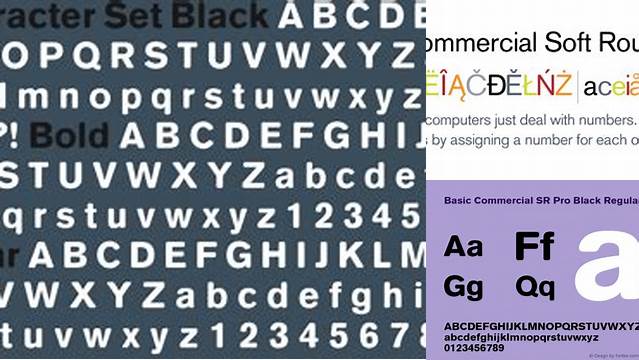
Hey guys! If you're on the hunt for a versatile and user-friendly font that's perfect for all sorts of design projects, you've come to the right place. We're diving deep into the world of basic commercial soft rounded fonts, offering you a complete guide to find the perfect one, with a focus on free downloads. This type of font is a real workhorse, offering a friendly and approachable feel that's ideal for everything from websites and apps to logos and marketing materials. Let's get started!
1. What Exactly is a Soft Rounded Font? Understanding the Basics
Okay, so first things first: what is a soft rounded font, and why should you care? Basically, it's a typeface characterized by its gentle curves and rounded terminals (the ends of the letter strokes). Think of it as the polar opposite of a harsh, angular font. Instead of sharp corners, you get smooth, flowing lines that create a sense of warmth, approachability, and modernity. This is a huge deal when it comes to design; it can significantly impact how your audience perceives your brand or message.
Basic commercial soft rounded fonts, as the name suggests, are designed with a commercial license in mind. This means you can use them for a wide range of projects, including those that are intended for profit, without worrying about copyright issues (always check the specific license!). The 'soft' aspect is what sets these fonts apart. It refers to the rounded edges and lack of sharp lines, giving them that friendly appearance. The goal with these fonts is to be readable and visually appealing, making them a great choice for branding, user interfaces, and body text.
This type of font is extremely versatile and can be applied to many things, from a cool logo design or a website to a social media banner. The goal is to make the text feel inviting and easy on the eyes. This is especially important for user interfaces, where you want to create a smooth experience without any harshness. The design of a soft rounded font also lends itself very well to a clean and minimalist aesthetic, which is hugely popular in modern design. In short, a basic commercial soft rounded font is a super handy tool to have in your design toolkit. Its adaptability means it can be used in loads of different ways.
2. Key Features and Characteristics of Soft Rounded Fonts
So, what exactly makes a font a basic commercial soft rounded font? Let's break down the key characteristics: The main thing is, of course, the rounded terminals. The ends of the letter strokes are curved rather than pointed, which is what gives these fonts their soft appearance. You'll notice a lack of sharp angles; the curves flow smoothly, creating a visually pleasing and inviting aesthetic. A good soft rounded font will be highly legible, even at smaller sizes. This is critical for body text and user interface elements. Also, many have a modern, clean aesthetic; they often avoid overly decorative elements, keeping the design simple and elegant.
Also, the versatility aspect is essential. A lot of these fonts are designed to work well in a variety of contexts, from headlines to body text. Because of the smooth shapes, they are great for creating logos and branding elements. The friendly appearance makes them a good fit for apps and websites. They are commonly used for a wide range of purposes, which is why they’re used so much. The rounded features have a way of softening the overall look of any design. Because of this, the font is well-suited to many design projects.
The best basic commercial soft rounded fonts often have a good balance between the thickness of strokes, making them easy to read on various backgrounds. The weight of the font (bold, regular, light, etc.) is designed to work well with the rounded shapes, ensuring readability and visual appeal. You also often find many character sets, including numbers and special characters, which allows for many possibilities. Pay attention to the kerning (the spacing between letters) and the overall design. A well-kerned font will look balanced and professional, enhancing the overall reading experience. So, when choosing, consider how well these features align with your project goals and design needs.
3. Where to Find Free Basic Commercial Soft Rounded Font Downloads
Alright, time for the good stuff – where do you actually find these fonts for free? There are tons of awesome websites out there offering a wide selection of basic commercial soft rounded fonts. Sites like Google Fonts are a great starting point; they offer a vast library of open-source fonts, most of which are free for commercial use. Always double-check the license to be sure, but Google Fonts is a reliable source. Other great options include Font Squirrel, known for its hand-picked, high-quality fonts, many of which have commercial licenses.
Be sure to visit DaFont. Although the fonts on DaFont are typically free for personal use, be sure to check the license details before using them in commercial projects, where a purchase may be required. Behance and Dribbble are also goldmines. These are platforms for designers, and you can often find free font downloads or links to free fonts shared by designers. A search on these sites, specifically for “free fonts” or “free commercial fonts”, can yield some incredible results. The crucial part is to always verify the licensing terms before you download and use any font. Most websites make this easy, but it’s always worth a few clicks to be sure.
Always pay attention to the file formats that are offered. Most of the time, you'll find the fonts available in .TTF (TrueType Font) or .OTF (OpenType Font) formats, both of which are compatible with most operating systems and design software. If you're looking for fonts for web design, you might need to convert them to .WOFF or .WOFF2 format (a web font format) with an online converter.
30. Conclusion: Embracing the Versatility of Soft Rounded Fonts
So, there you have it, guys! We've covered everything you need to know about basic commercial soft rounded fonts and how to find them for free. These fonts are an incredible tool for any designer. They offer a versatile and user-friendly aesthetic that can be applied to a wide range of projects. From creating logos and websites to crafting marketing materials, they create a sense of approachability and modernity that can enhance any design. So go out there and start exploring the world of soft rounded fonts. Experiment with different styles, and don't be afraid to mix and match them with other design elements. I promise you'll find the perfect font to bring your creative vision to life! Have fun, and happy designing!